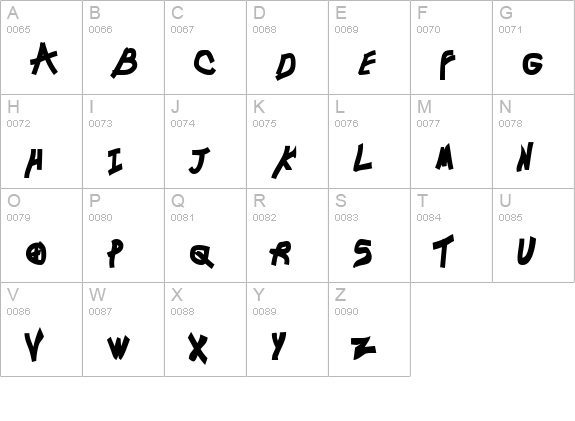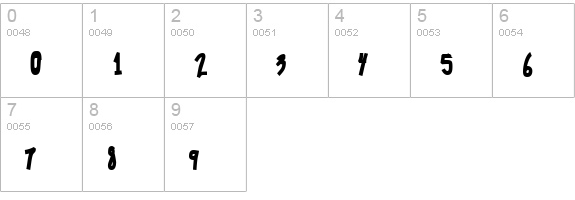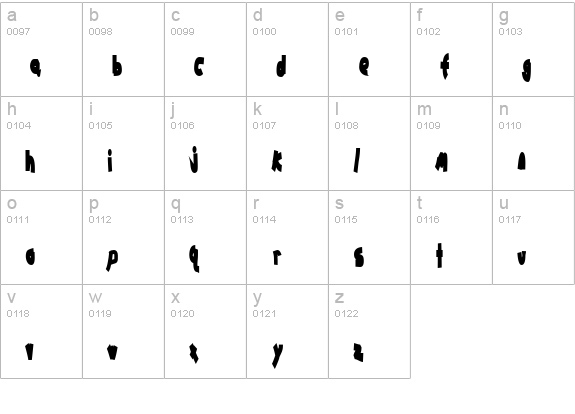
Chunkmuffin Bolded Font Details
Chunkmuffin Bolded font is a stylish and eye-catching typeface that exudes confidence and power. Its bold and chunky design makes it perfect for creating impactful headlines, titles, and logos. Whether you're working on a poster, advertisement, or website design, Chunkmuffin Bolded font will make your text stand out and grab attention. This versatile font is freely available to download at FontsMarket.com, allowing you to use it in both personal and commercial projects without any restrictions. With its strong presence and modern aesthetic, Chunkmuffin Bolded font is sure to elevate your designs and leave a lasting impression on your audience. Add this dynamic font to your collection today and unleash its boldness in your creative projects.